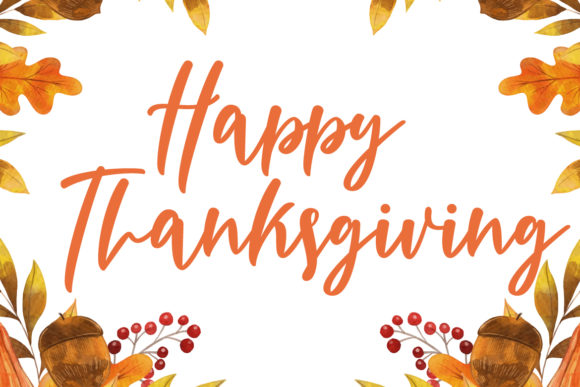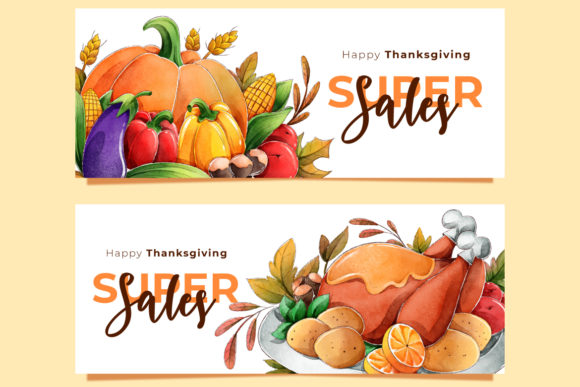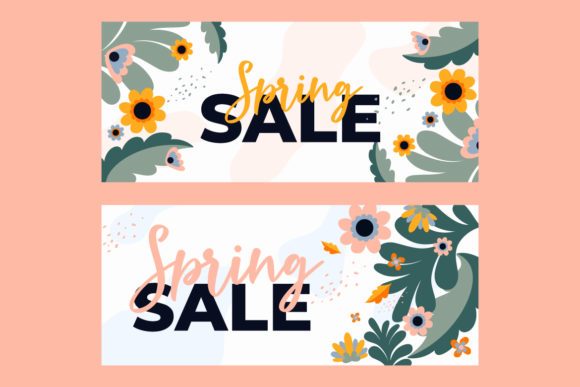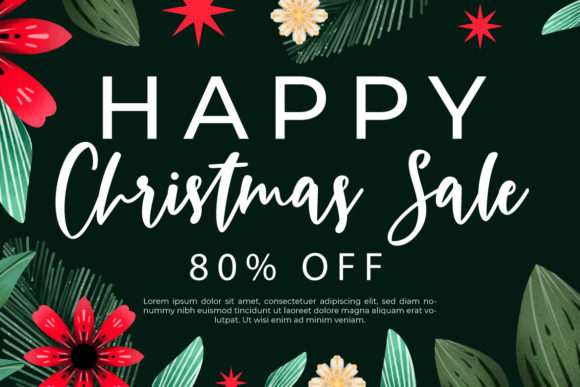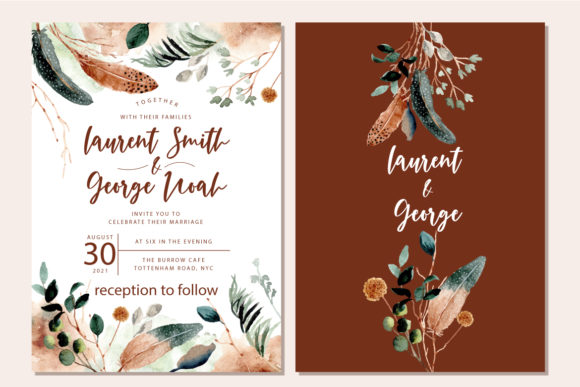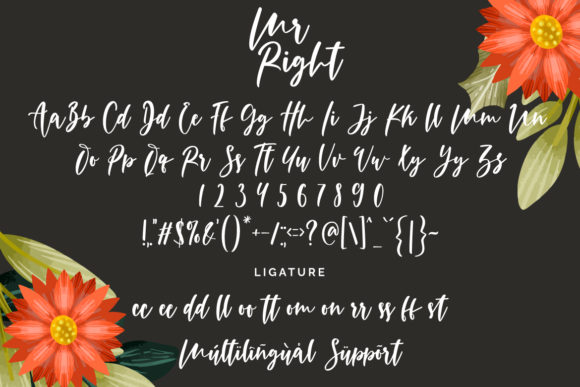
Introduction to Mr Right Font Font
Fonts play a crucial role in design, and the Mr Right Font font is a typeface that brings both character and versatility to any project. Whether you’re working on a branding project, a website, or a print design, the Mr Right Font font offers a unique style that can elevate your work.
Mr Right is a beautiful script font with bolded letters and rounded corners that create a beautiful authentic feel.
This font could be the βrightβ fit for youβre next project This font is PUA encoded which means you can access the available glyphs and swashes with ease.
Key Features of Mr Right Font Font
Why Choose Mr Right Font Font?
The Mr Right Font font is more than just a typeface β it’s a design tool that helps you communicate your message with style and clarity. Its unique character set and versatile design make it suitable for a wide range of applications, from elegant invitations to bold headlines.
With its carefully crafted letterforms and balanced proportions, the Mr Right Font font ensures readability and visual appeal across all mediums.
What makes Mr Right Font font special?
The Mr Right Font font stands out with its unique design, exceptional readability, and versatility across various design applications.